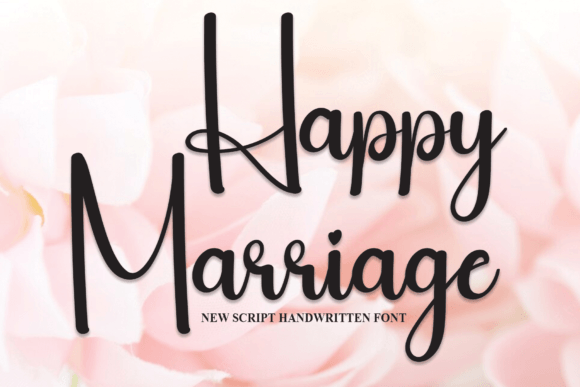
Embrace the jovial spirit of togetherness with Happy Marriage Font, a whimsical handwritten font brimming with warmth and charm. Its graceful strokes and heartfelt feel evoke the joyous union of two souls, making it an ideal choice for crafting wedding invitations, save-the-date cards, and other heartfelt correspondence.
Express your creative flair with Happy Marriage Font, a versatile script font that adds a touch of playfulness and elegance to your digital designs. Its organic flow and beautiful imperfections lend a handcrafted feel to your projects, whether you're creating social media graphics, website banners, or eye-catching display ads.
Immerse yourself in the world of Happy Marriage Font, a font family that captures the essence of joy and love. Perfect for adding a personal touch to your presentations, this font brings a sense of warmth and connection to your slides. Engage your audience with captivating visuals that resonate, leaving a lasting impression.
Unlock your creativity with Happy Marriage Font, a font that transforms ordinary greeting cards into heartfelt expressions of love and appreciation. Its charming style adds a touch of whimsy to birthday wishes, anniversary cards, and thank-you notes, making them truly special and memorable.